Behind the Scenes in Typeface Creation: Checking Font with Red Pencil 02: “S-, S+, C-, and C+”
Previously, I introduced “W-” and “W+” as simplified checking with red pencil. I would like to introduce checking with red pencil for alphabet characters at this time.
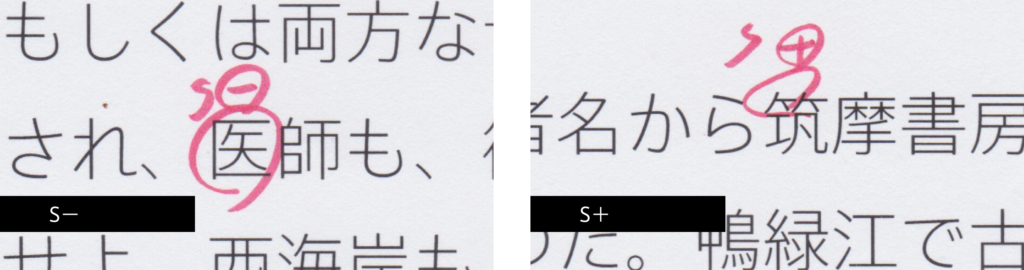
“S” means size, and the instruction of “S-” means “smaller,” and “S+” means “larger.” When simply magnified or reduced, thickness of the strokes changes together, so correction is made by making the structure smaller or larger without changing the thickness.
For “医,” the instruction is to make the entire character smaller. When the square character is created fully in type face, it tends to look larger than other characters. Because of this, I’m careful with the size adjustment. For “筑,” the instruction is given to make only the left part of take-kanmuri larger. For take-kanmuri, the balance between right and left is also checked.
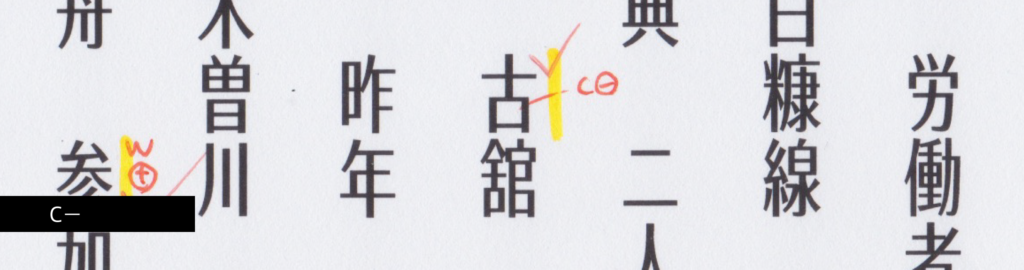
“C” means counter. “C-” means “make the counter narrower,” and “C+” means “make the counter wider.” Here, the instruction is given to make the counter of “口” part of “古” narrower. In checking with red pencil for the TP Sky series, I saw more “C-” than “C+.”
In addition, “G” is used for the instruction for raising or lowering the gravity.